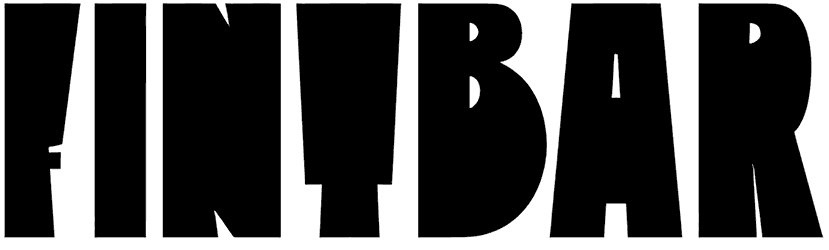
Fintbar Font
If you want to take your design out of the simple form and give it an impressive look, this can be a good option. This groovy font with its bold and unique face is capable of catching a lot of attention. There is no offer for lowercase, but Fintbar would serve as a distinct illustration for many ideas like headlines, wordmarks, album covers, and whatnot.